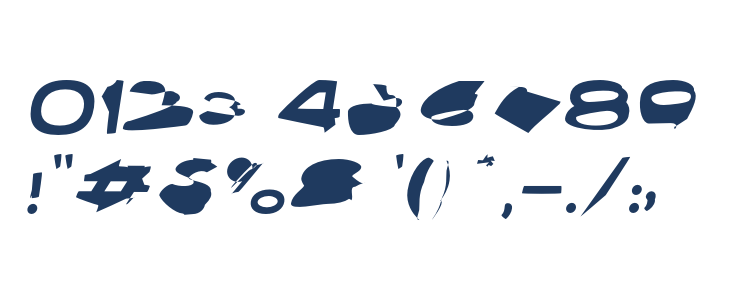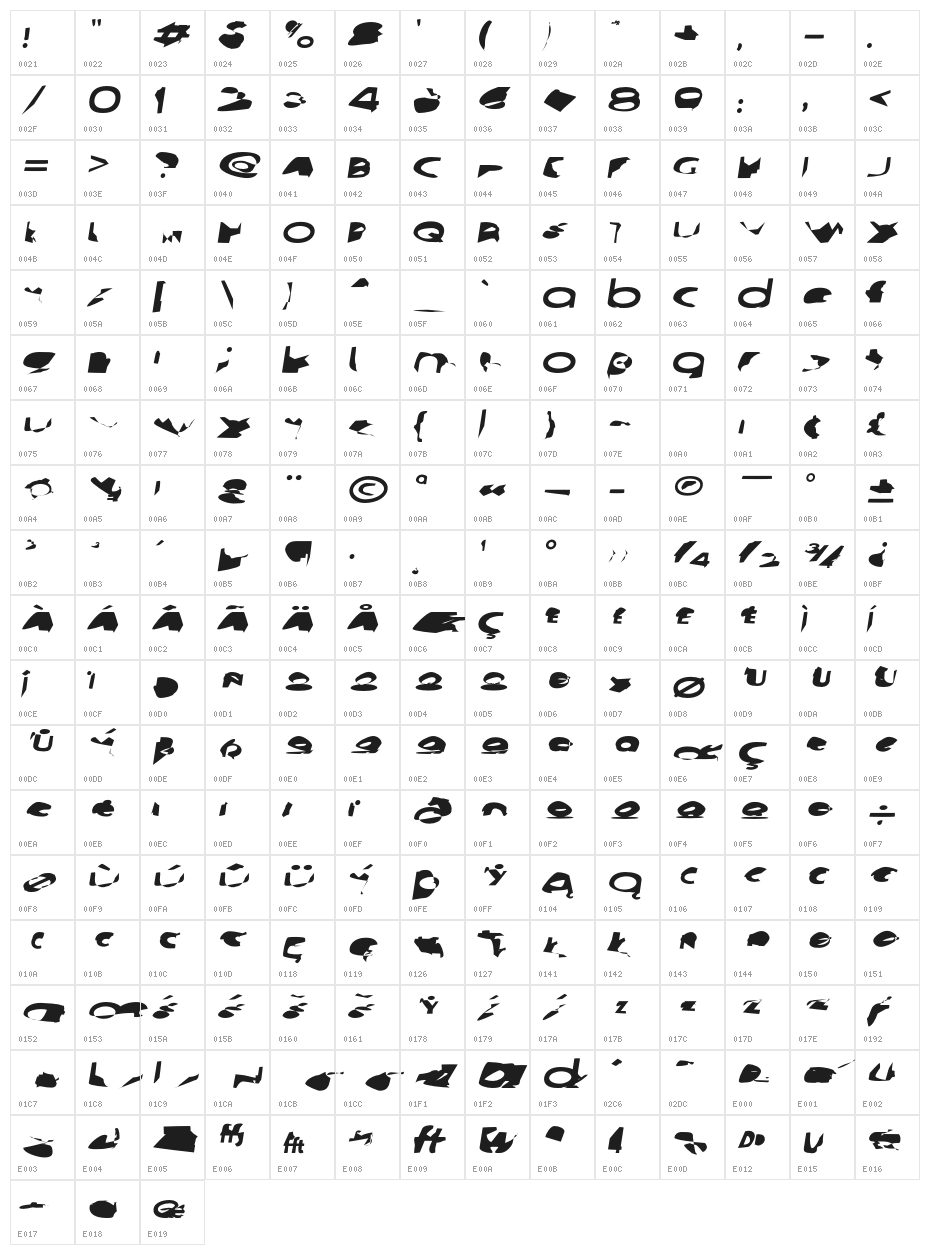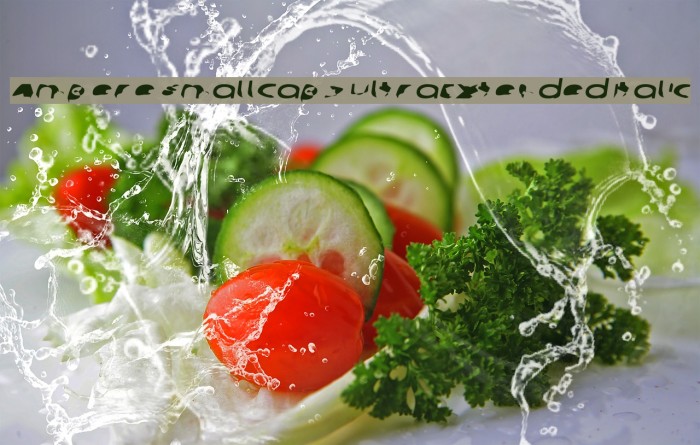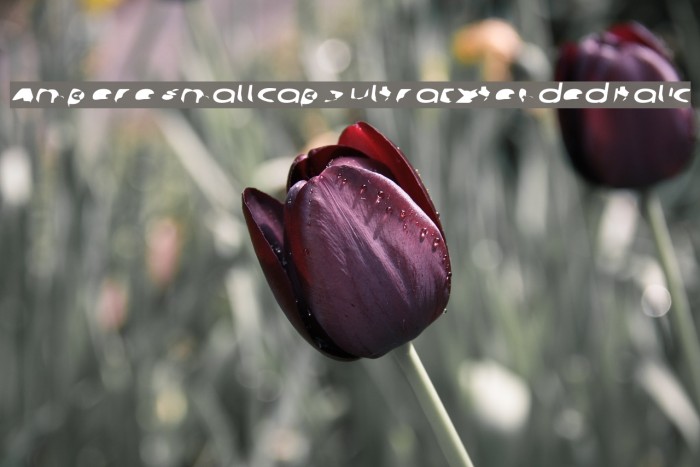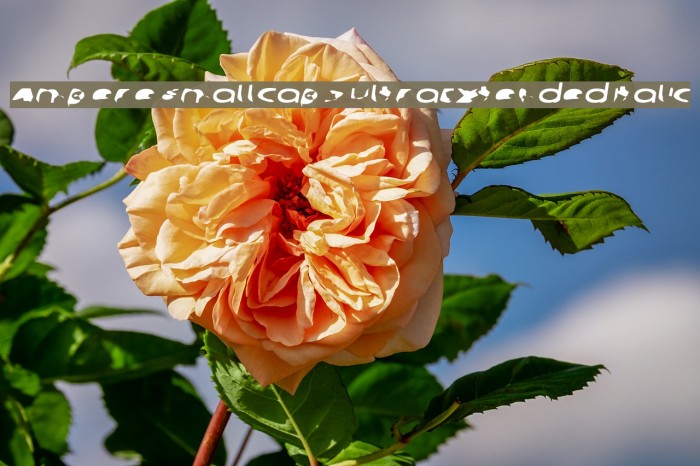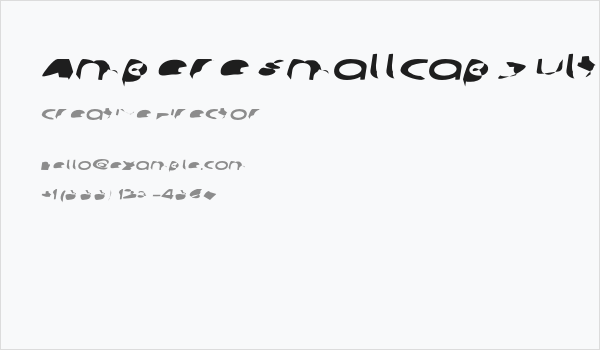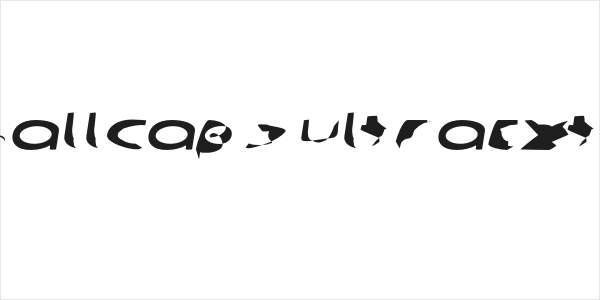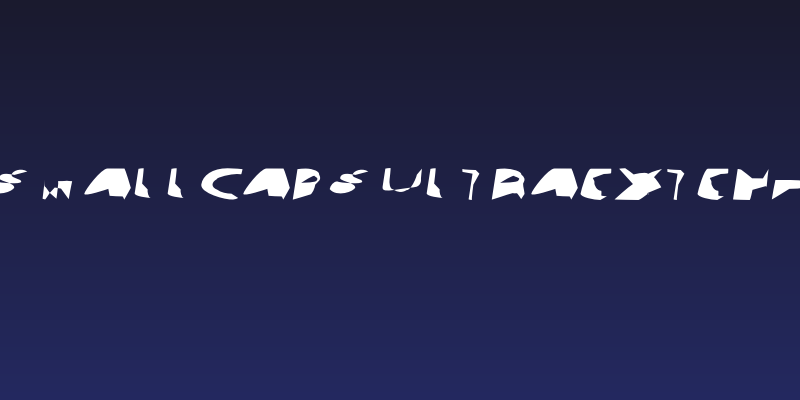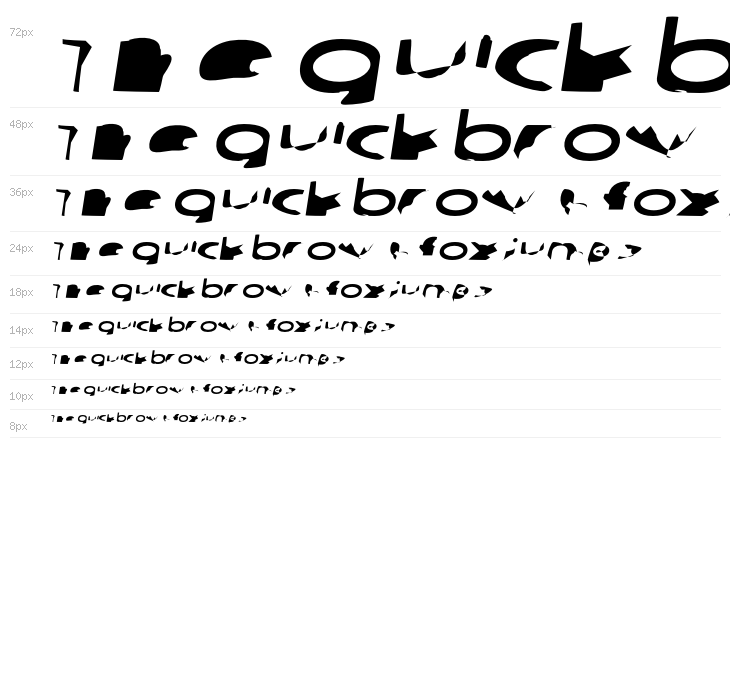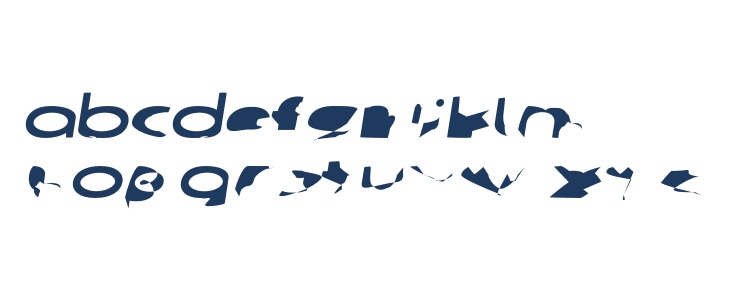
Ampere SmallCaps UltraExtended Italic Font
Ampere SmallCaps UltraExtended Italic Description
This font exhibits a bold and dynamic style with an ultra-extended and italicized form. The characters are heavily stylized with sharp angles and unique cuts, creating a sense of movement and energy. The uppercase letters are particularly striking, with exaggerated widths that give them a commanding presence. The lowercase letters maintain a similar aesthetic, ensuring consistency throughout the typeface. Numbers and special characters follow the same design principles, making them cohesive with the overall look. The font's distinctiveness makes it ideal for attention-grabbing designs.